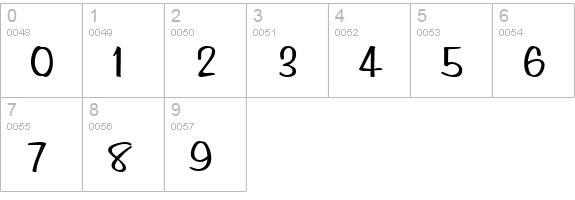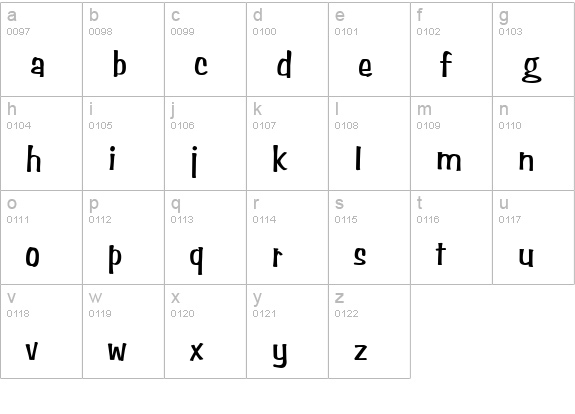
Simpson Normal is the standard, neutral variant in the Simpson typeface family \xE2\x80\x94 well suited to general body text, paragraphs, and standard typographic work.
Simpson Normal font is a versatile and stylish typeface that is perfect for adding a touch of sophistication to any design project. With its clean lines and balanced proportions, this font exudes elegance and professionalism. Simpson Normal font features a classic yet contemporary design, making it suitable for a wide range of applications, from branding and advertising to packaging and editorial design. Its timeless appearance ensures that it will never go out of style, making it a reliable choice for any creative endeavor. What sets Simpson Normal font apart is that it is offered completely free of charge. Yes, you heard it right - this exceptional font is freely available to download at FontsMarket.com. This means that you can enhance your designs without worrying about any additional costs. Whether you are a professional designer or an aspiring creative, this font is a valuable addition to your library. Download Simpson Normal font today and experience the beauty and versatility it brings to your projects. Its clear and legible characters will captivate your audience while maintaining a sense of elegance and refinement. Don't miss out on this incredible opportunity to elevate your designs with a high-quality font that won't cost you a dime. Visit FontsMarket.com now and get your hands on Simpson Normal font for free.